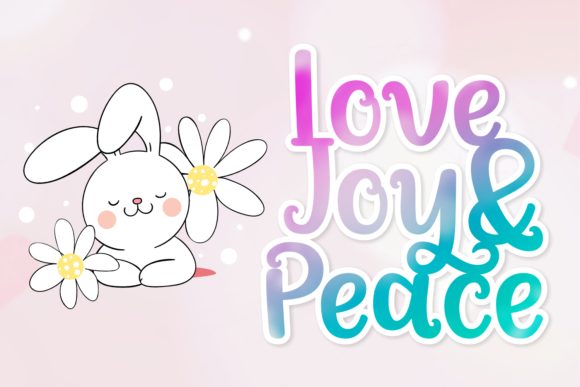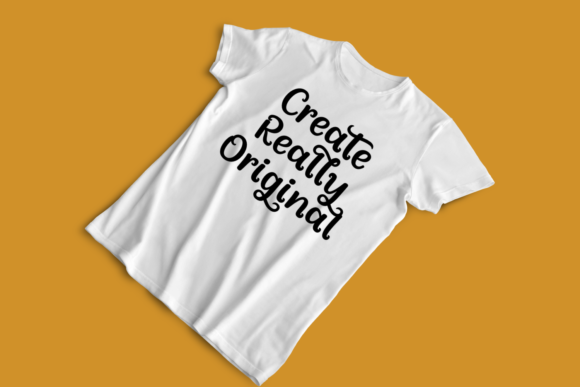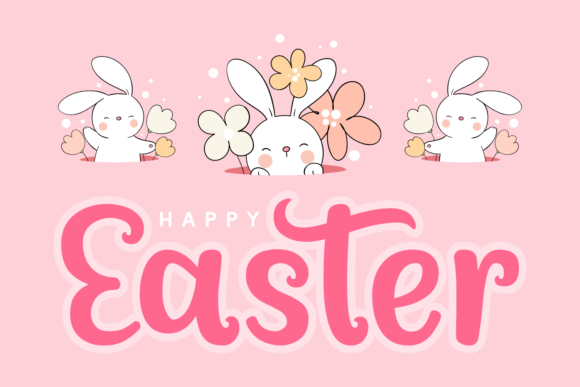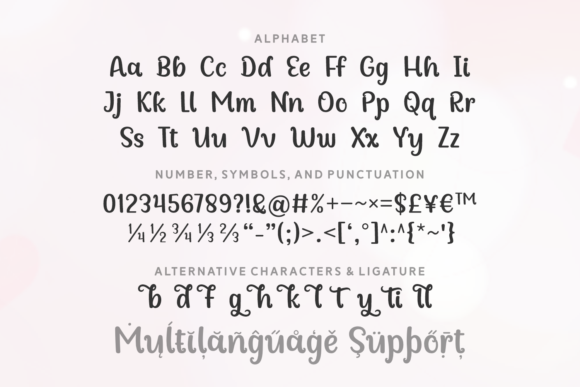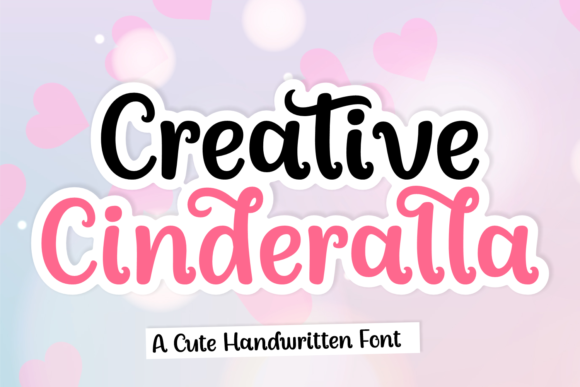
Introducing Creative Cinderalla: The Playful Handwritten Font for Creative Minds
Are you a designer, crafter, or creative enthusiast looking for a font that can add a touch of whimsy and playfulness to your projects? Look no further than Creative Cinderalla, a gorgeous handwritten font that’s perfect for a wide range of applications. In this article, we’ll take a closer look at this beautiful font and explore its many uses, from cards and posters to branding and art prints.
What is Creative Cinderalla?
Creative Cinderalla is a cute handwritten font that’s designed to bring a smile to your face. With its playful and creative touch, this font is perfect for anyone who wants to add a bit of personality to their designs. Whether you’re working on a children’s book, a fashion brand, or a craft project, Creative Cinderalla is sure to delight.
Key Features of Creative Cinderalla
- Playful and creative: Creative Cinderalla has a unique, handwritten feel that’s perfect for projects that require a touch of whimsy.
- Highly versatile: This font can be used for a wide range of applications, from cards and posters to branding and art prints.
- Easy to read: Despite its playful feel, Creative Cinderalla is highly legible, making it perfect for use in body text.
- Scalable: This font can be scaled up or down without losing its charm, making it perfect for use in a variety of contexts.
Uses for Creative Cinderalla
So, what can you use Creative Cinderalla for? The possibilities are endless! Here are just a few ideas to get you started:
- Cards: Create beautiful, one-of-a-kind greeting cards for birthdays, weddings, and other special occasions.
- Posters: Design eye-catching posters for events, promotions, or simply to decorate your walls.
- Fashion: Use Creative Cinderalla to create stunning fashion branding, from logos to packaging.
- Books and articles: Add a touch of personality to your writing with Creative Cinderalla, perfect for children’s books, blogs, or magazines.
- Branding: Create a unique and memorable brand identity with Creative Cinderalla, perfect for small businesses or personal projects.
- Logos: Design a custom logo that stands out from the crowd with Creative Cinderalla.
- Magazines and art prints: Use Creative Cinderalla to add a touch of whimsy to your magazine or art print designs.
Tips for Using Creative Cinderalla
Here are a few tips to help you get the most out of Creative Cinderalla:
- Experiment with colors: Creative Cinderalla looks great in a variety of colors, so don’t be afraid to experiment and find the perfect hue for your project.
- Mix and match: Combine Creative Cinderalla with other fonts or graphics to create a unique and eye-catching design.
- Pay attention to spacing: Make sure to adjust the spacing between letters and words to ensure that your text is easy to read.
- Have fun: Most importantly, have fun with Creative Cinderalla! This font is designed to bring a smile to your face, so enjoy the process of creating with it.
Creative Cinderalla is a beautiful, playful handwritten font that’s perfect for designers, crafters, and creative enthusiasts. With its highly versatile design and easy-to-read style, this font can be used for a wide range of applications, from cards and posters to branding and art prints. Whether you’re looking to add a touch of whimsy to your designs or simply want to try something new, Creative Cinderalla is sure to delight. So why not give it a try today and see what amazing creations you can come up with?